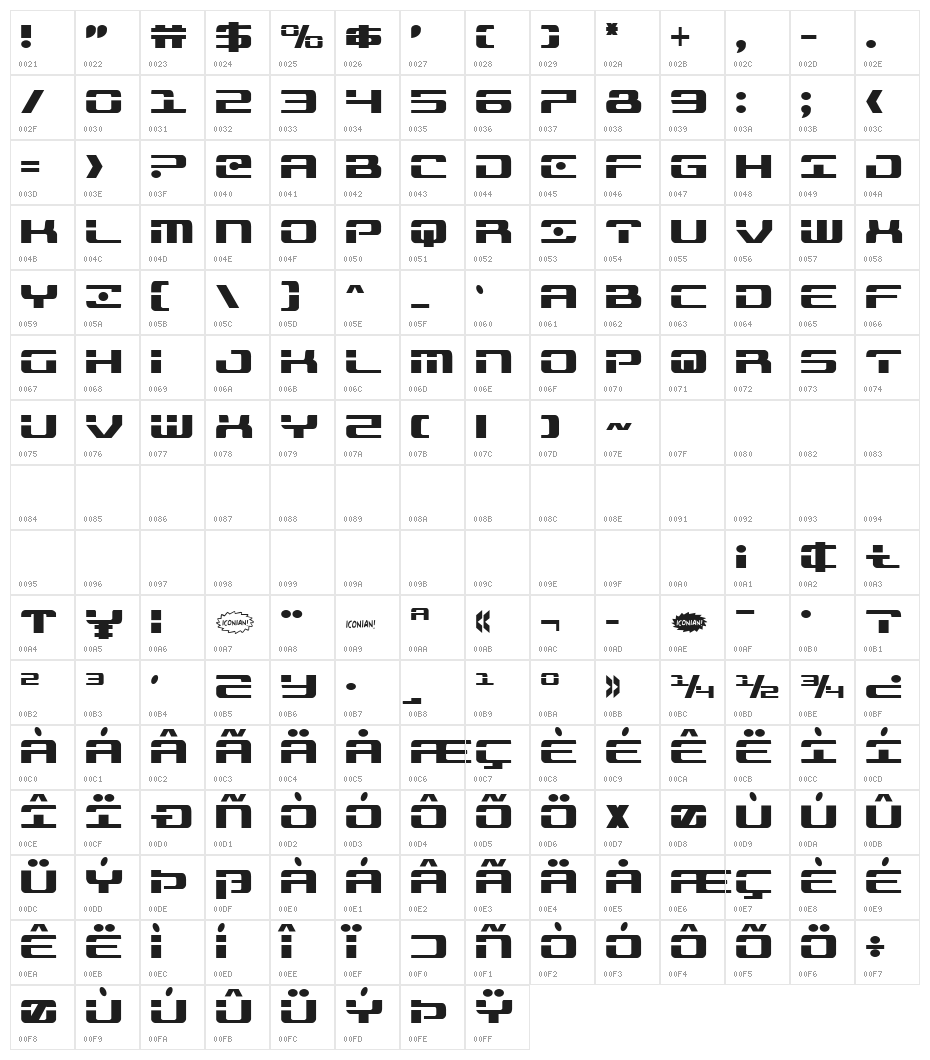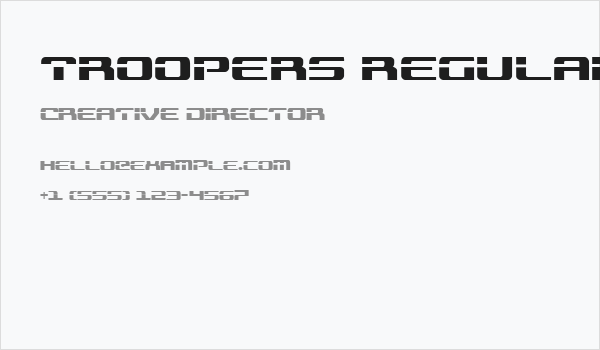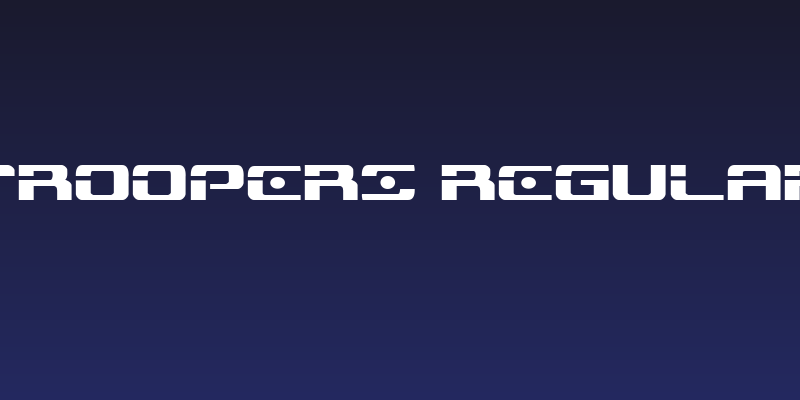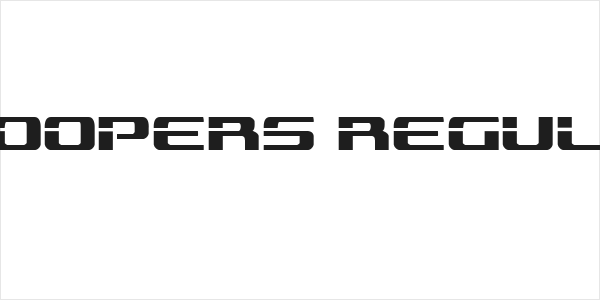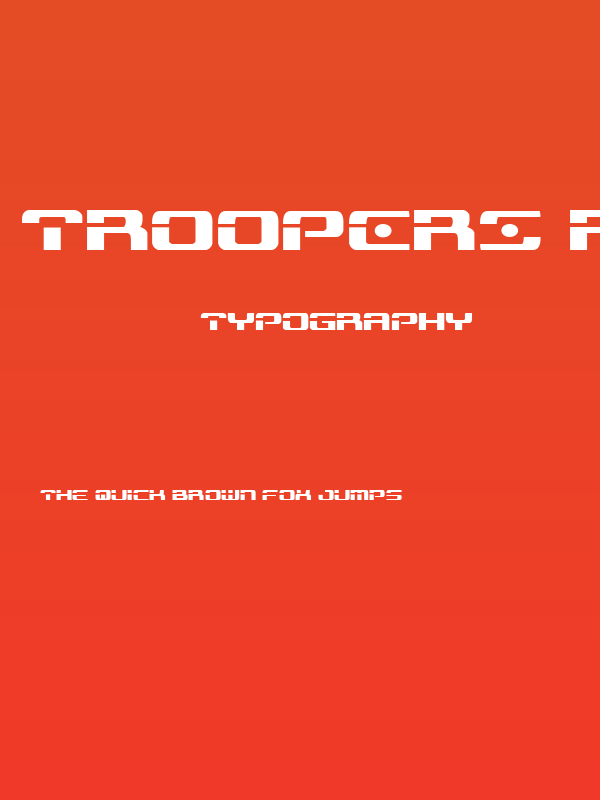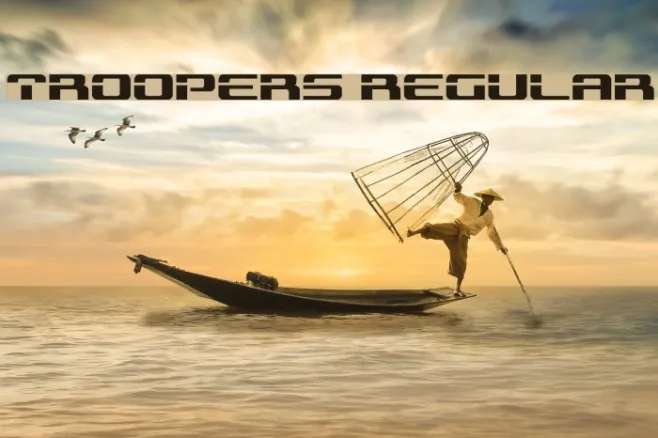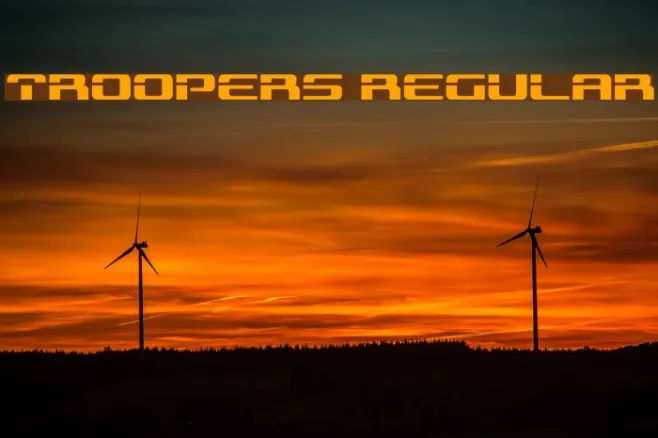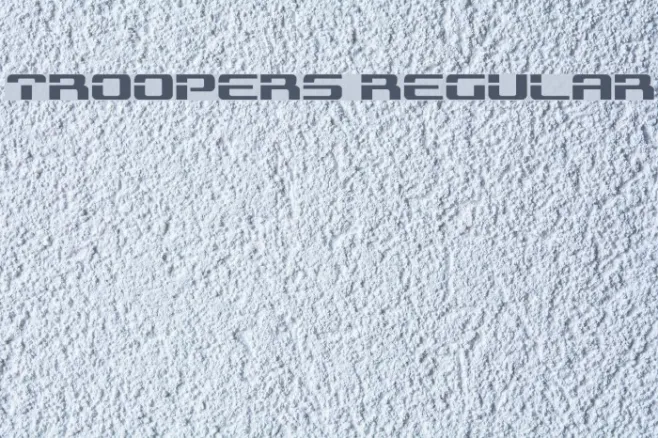
Troopers Regular Font
Troopers Regular Description
This font features a bold, futuristic design with a distinctly geometric structure. The characters are composed of thick, block-like segments with sharp angles and straight lines, giving it a modern and industrial feel. The uppercase and lowercase letters maintain a consistent style, with some characters featuring unique cutouts or gaps that add visual interest. The numbers and special characters follow the same design principles, ensuring uniformity across all glyphs. This font is highly legible and makes a strong visual impact, suitable for projects that require a bold and contemporary aesthetic.
| Proposed Projects | Ideal for sci-fi themed designs, technology branding, video game titles, and modern posters. |